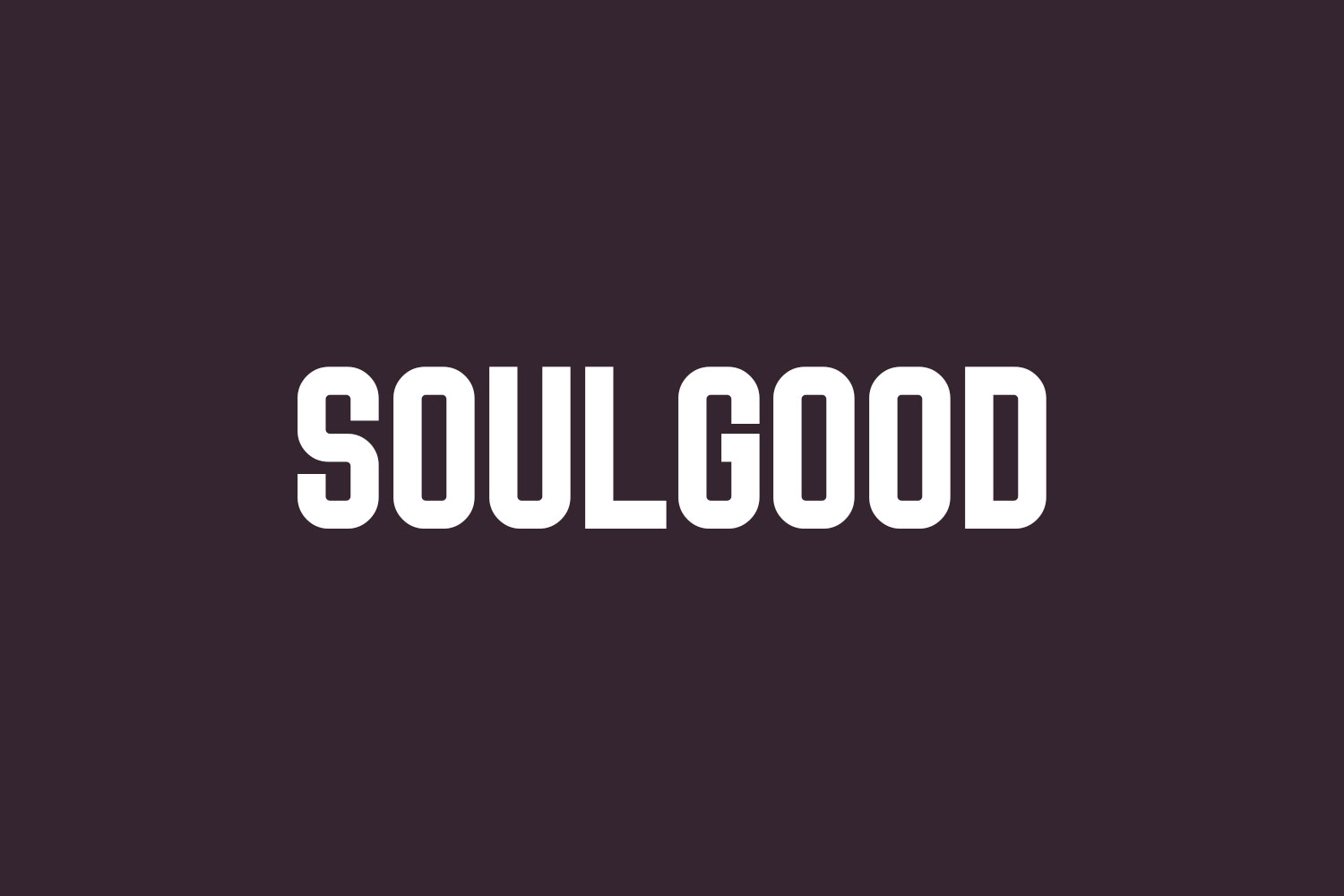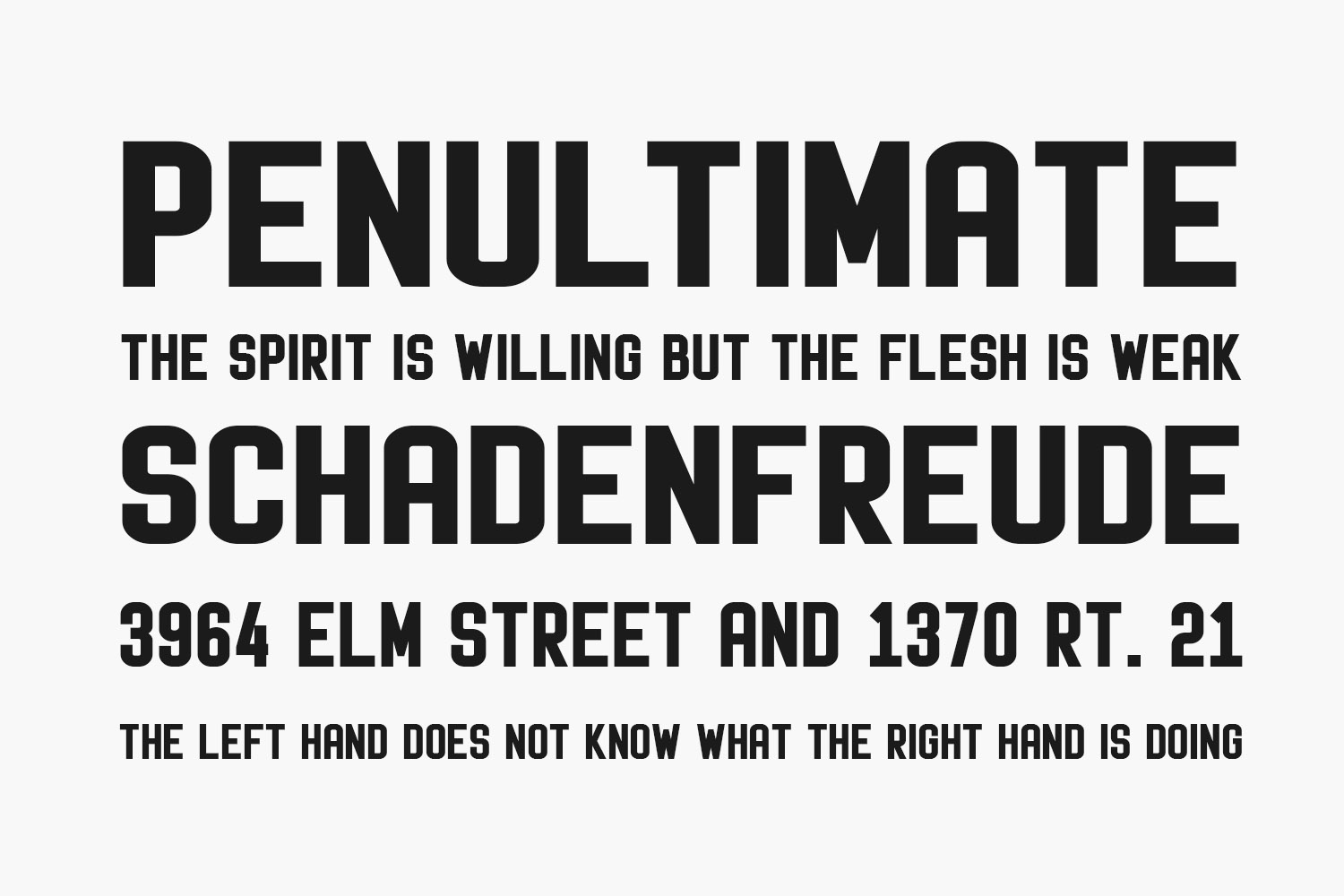
Soulgood Free Font is a sans serif typeface that adopts a modern and strong style. The curves in some of the letters make the Soulgood look beautiful and charismatic. Perfect for magazines, headers, invitations, cover book, logo, brand identity and so much more. Soulgood Free Font is free for personal use only. Please purchase the full version for commercial use.
Designed by Shanaya Studio